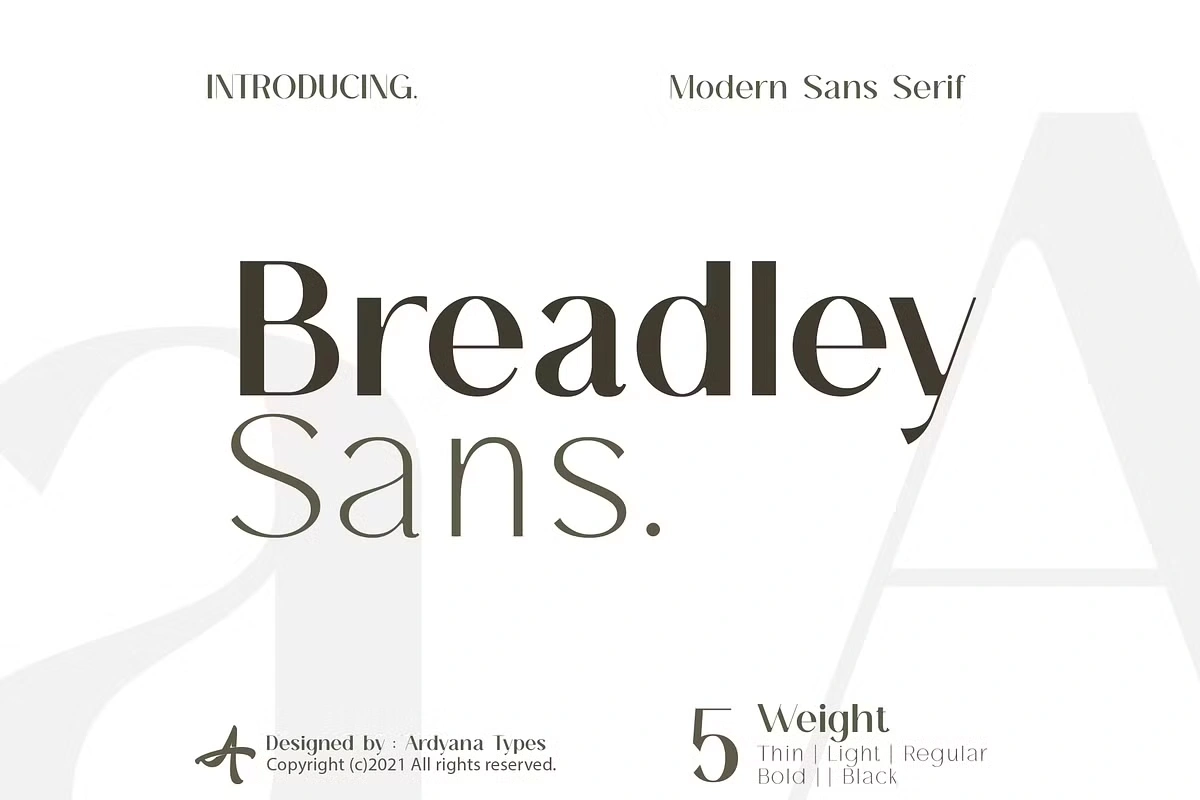
Breadley Sans Font
Breadley Sans Modern is a contemporary sans-serif typeface designed to provide versatility and elegance. It offers a wide range of thickness options, from thin to black, allowing users to customize their projects with precision. Whether you’re working on branding, web design, or printed materials, this font ensures a clean and modern aesthetic.
With its sleek and professional look, Breadley Sans Modern is an excellent choice for creating impactful brand logos and headlines. Its combination of perfect script balance and modern sans-serif design makes it stand out in both digital and print media. The font’s versatility allows it to adapt to various creative needs while maintaining a strong and stylish presence.
Breadley Sans is particularly well-suited for professional and corporate branding. It enhances business cards, uniforms, and name tags with a refined and sophisticated touch. Whether used for a startup or an established company, this font helps develop strong brand identities that leave a lasting impression.